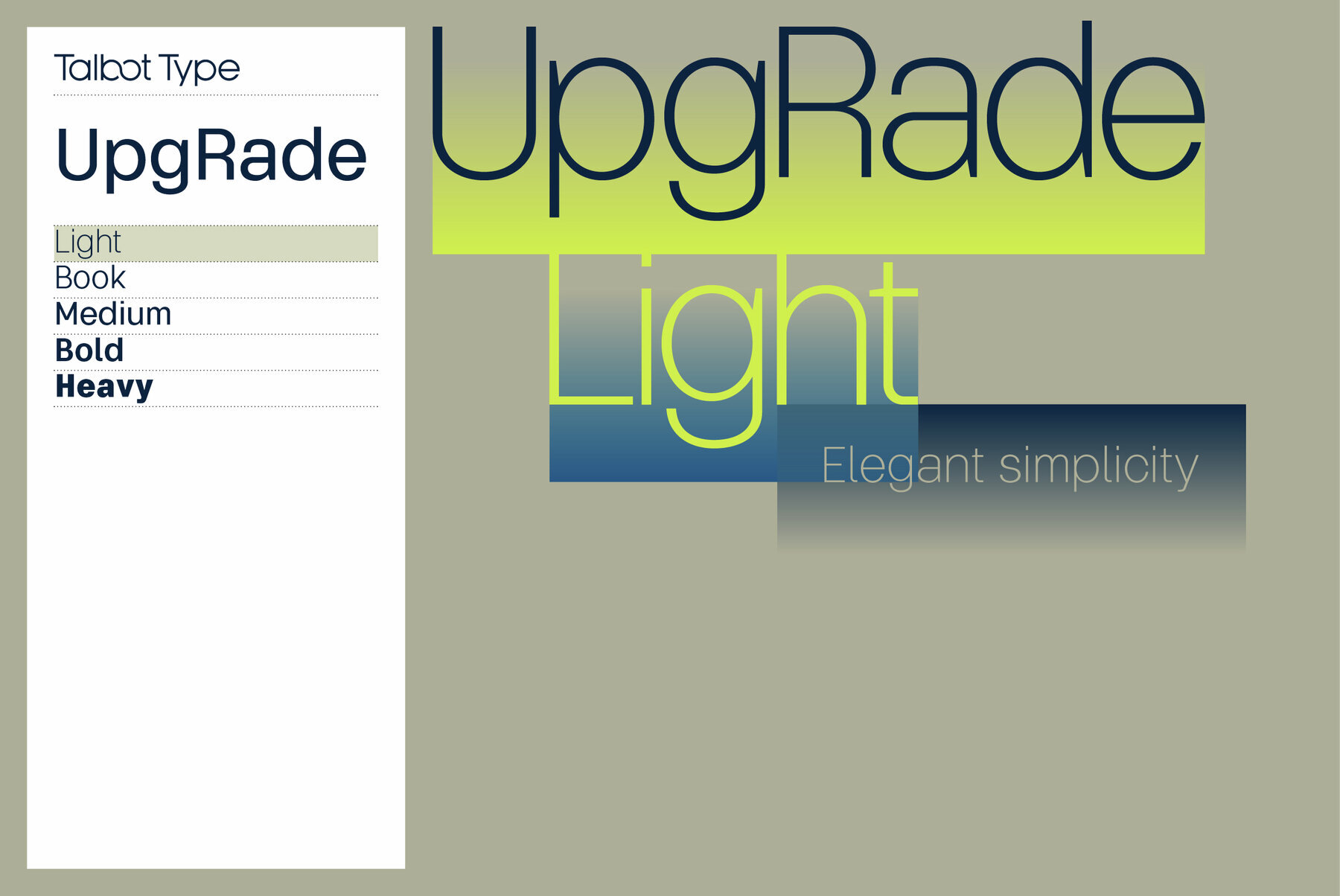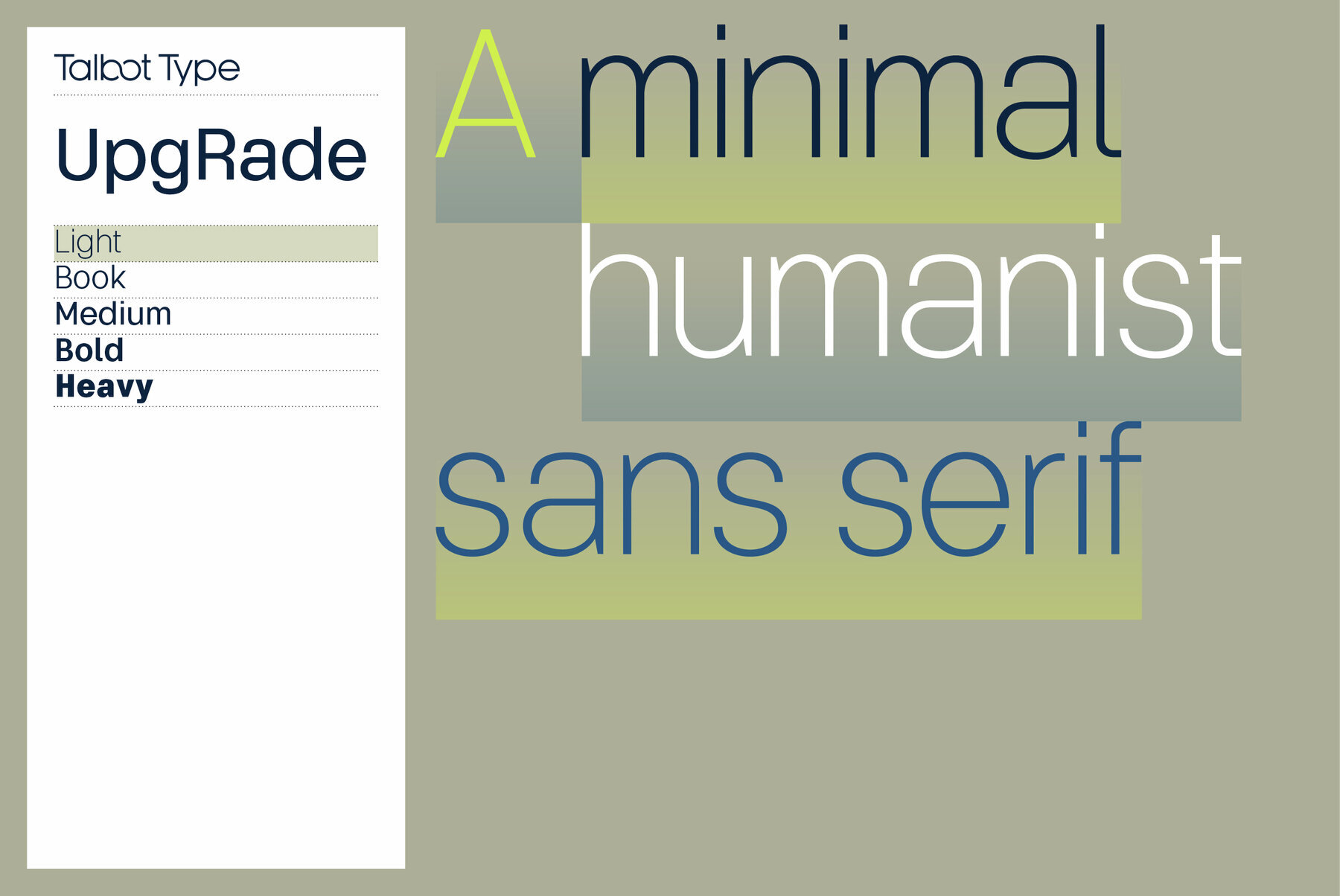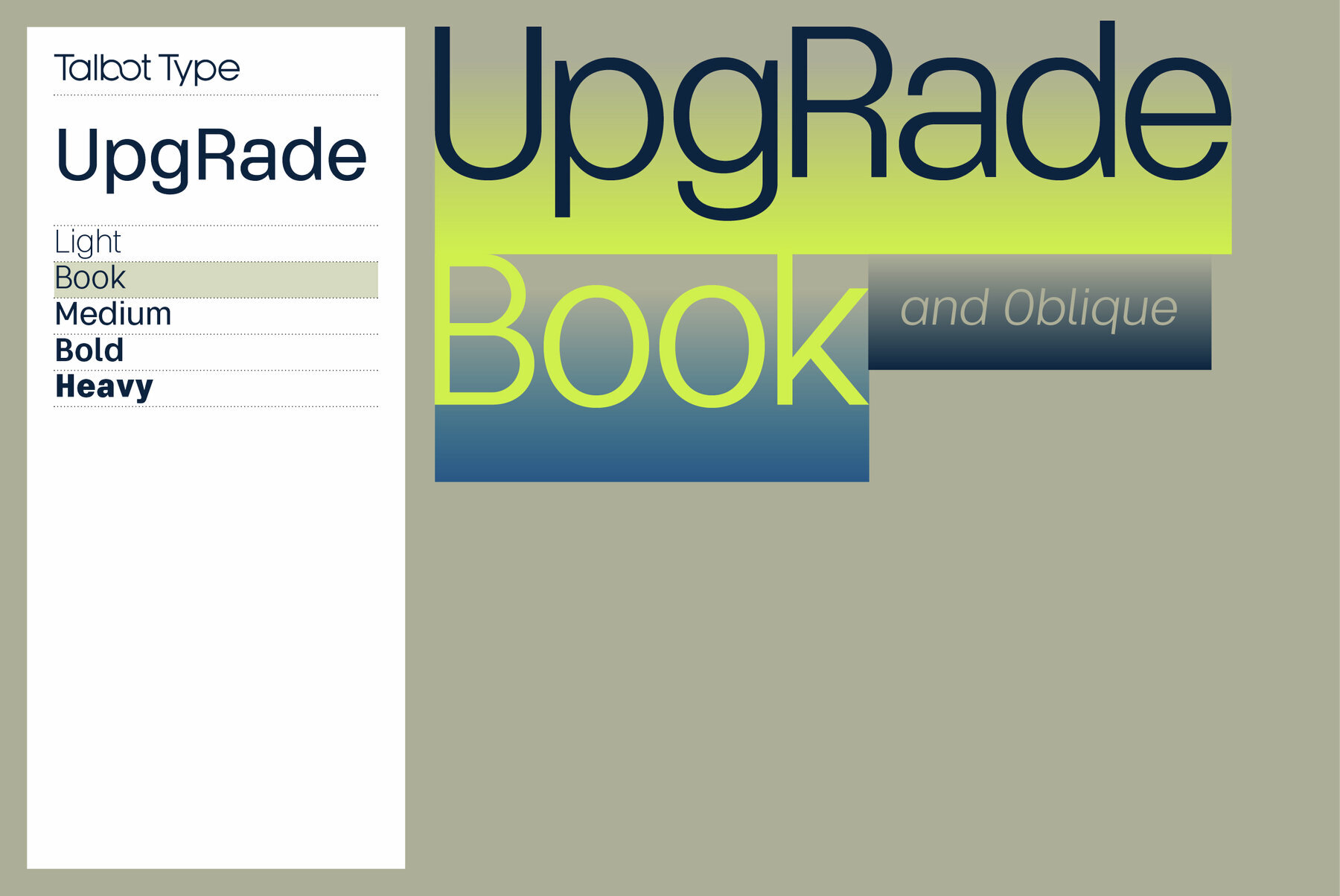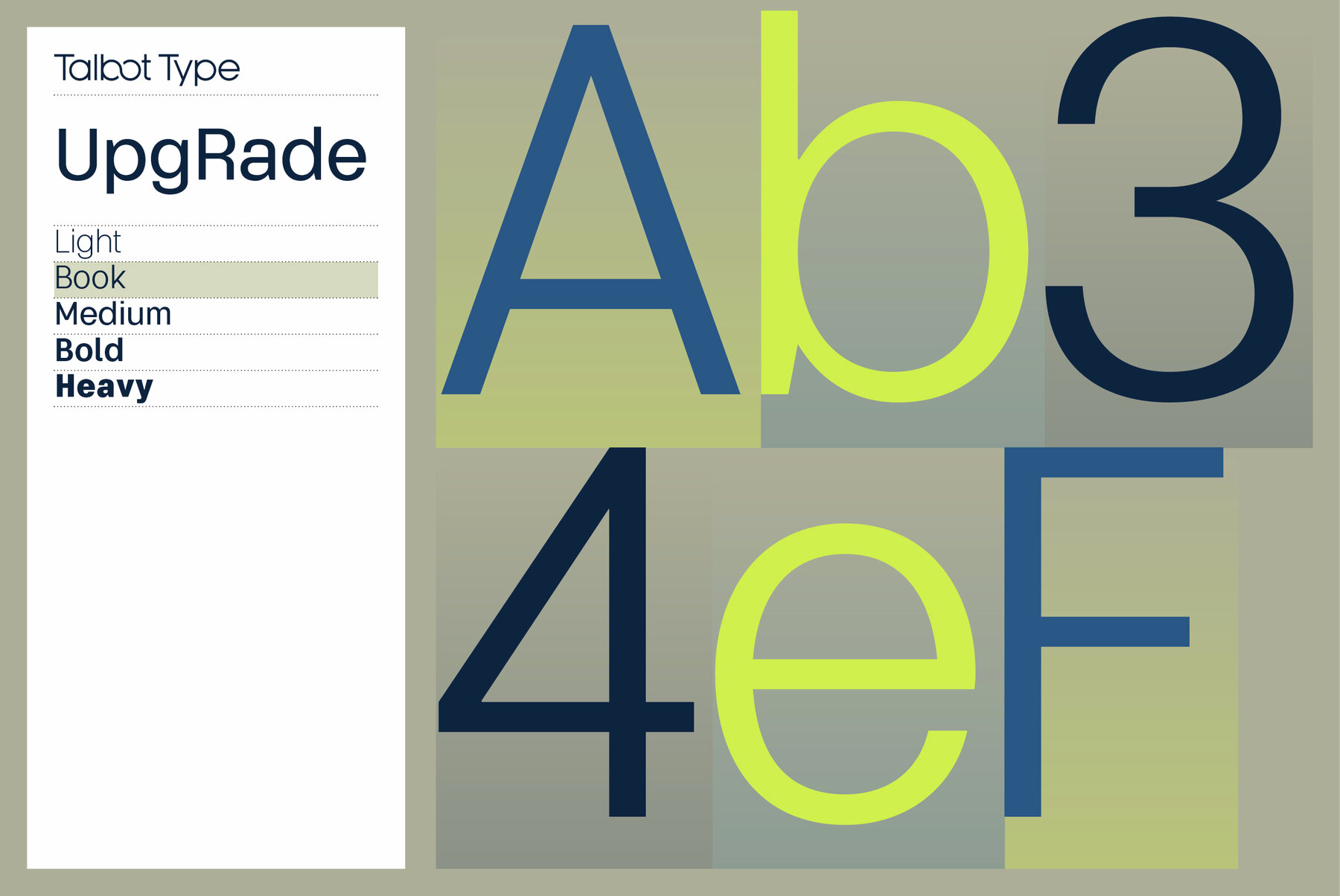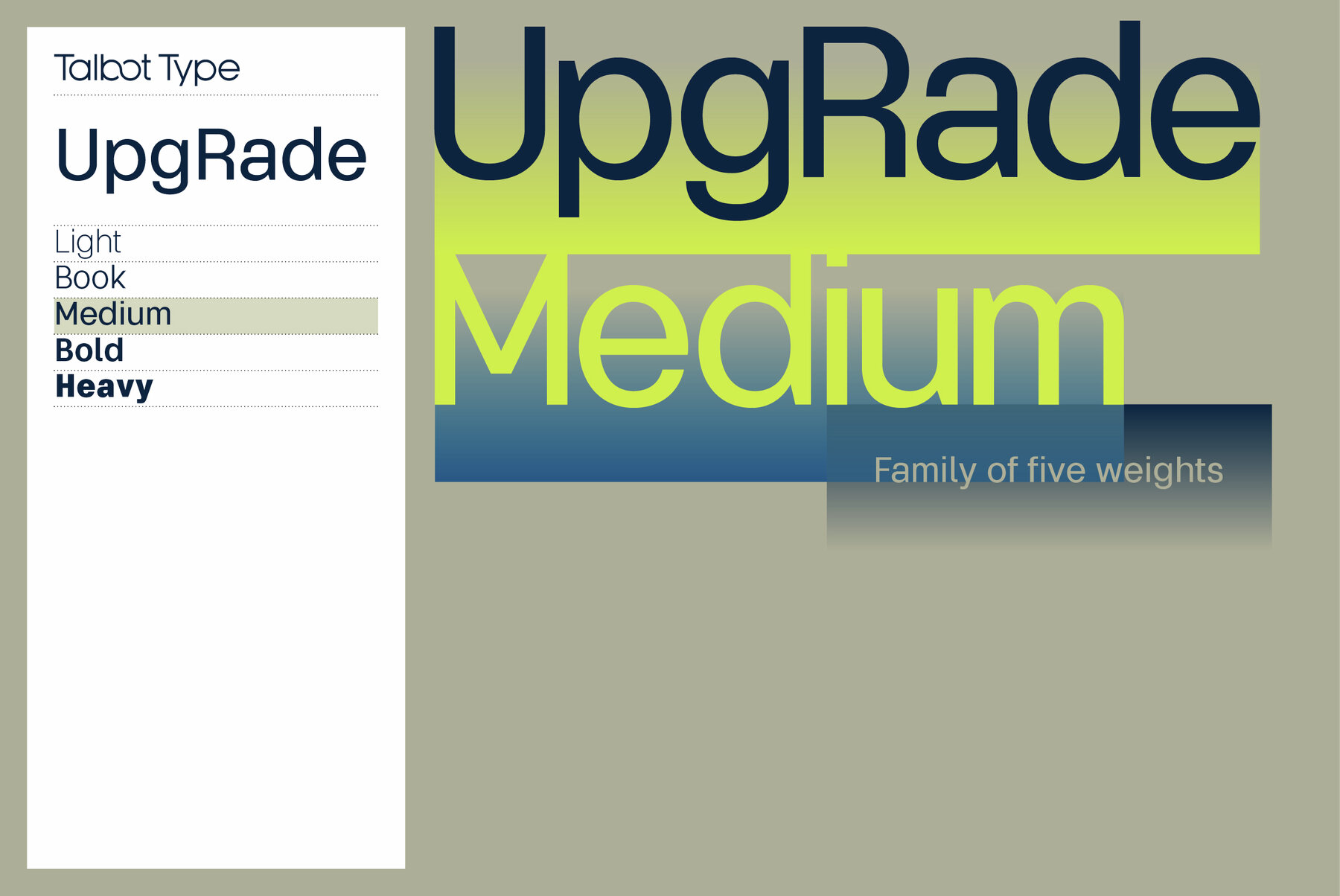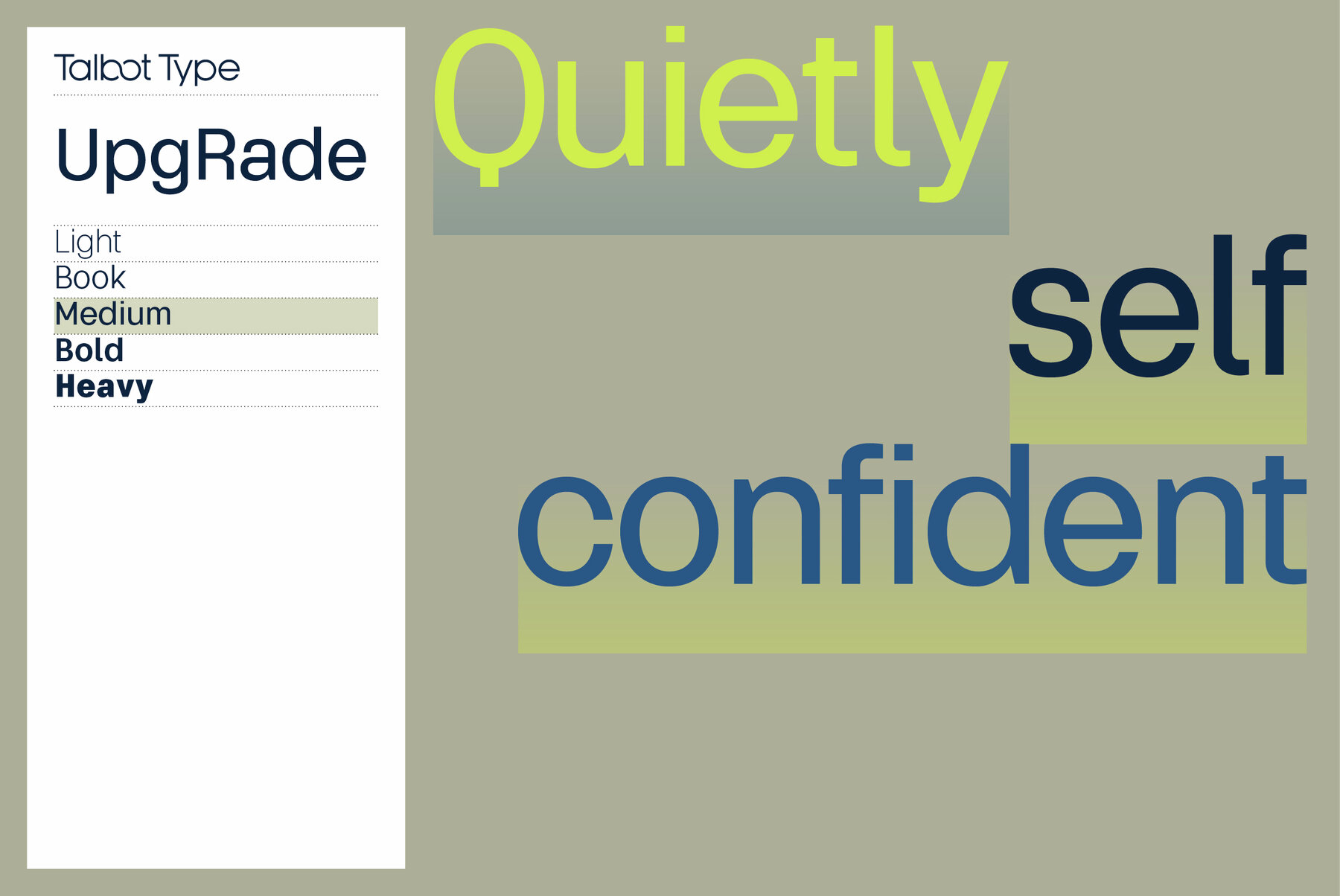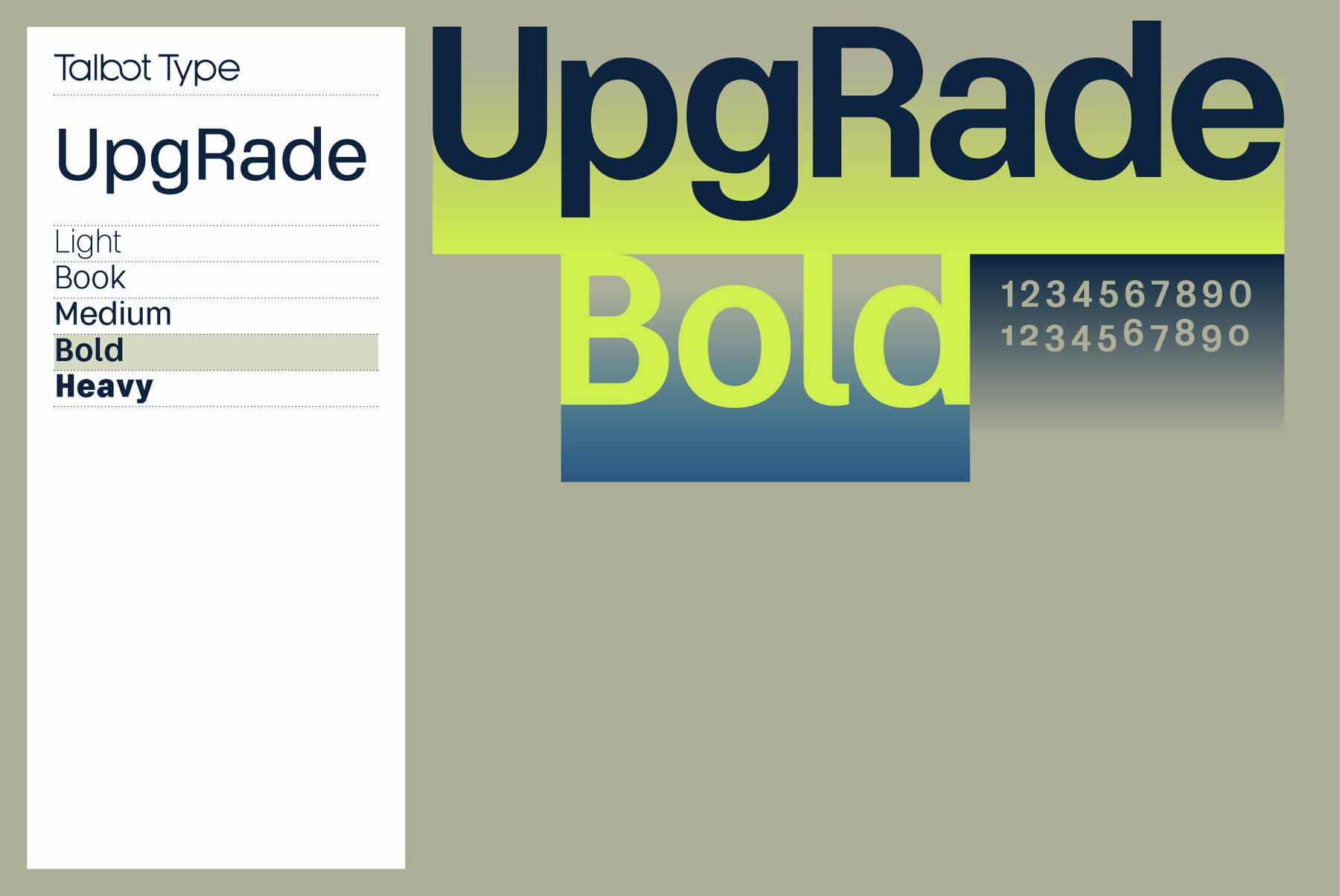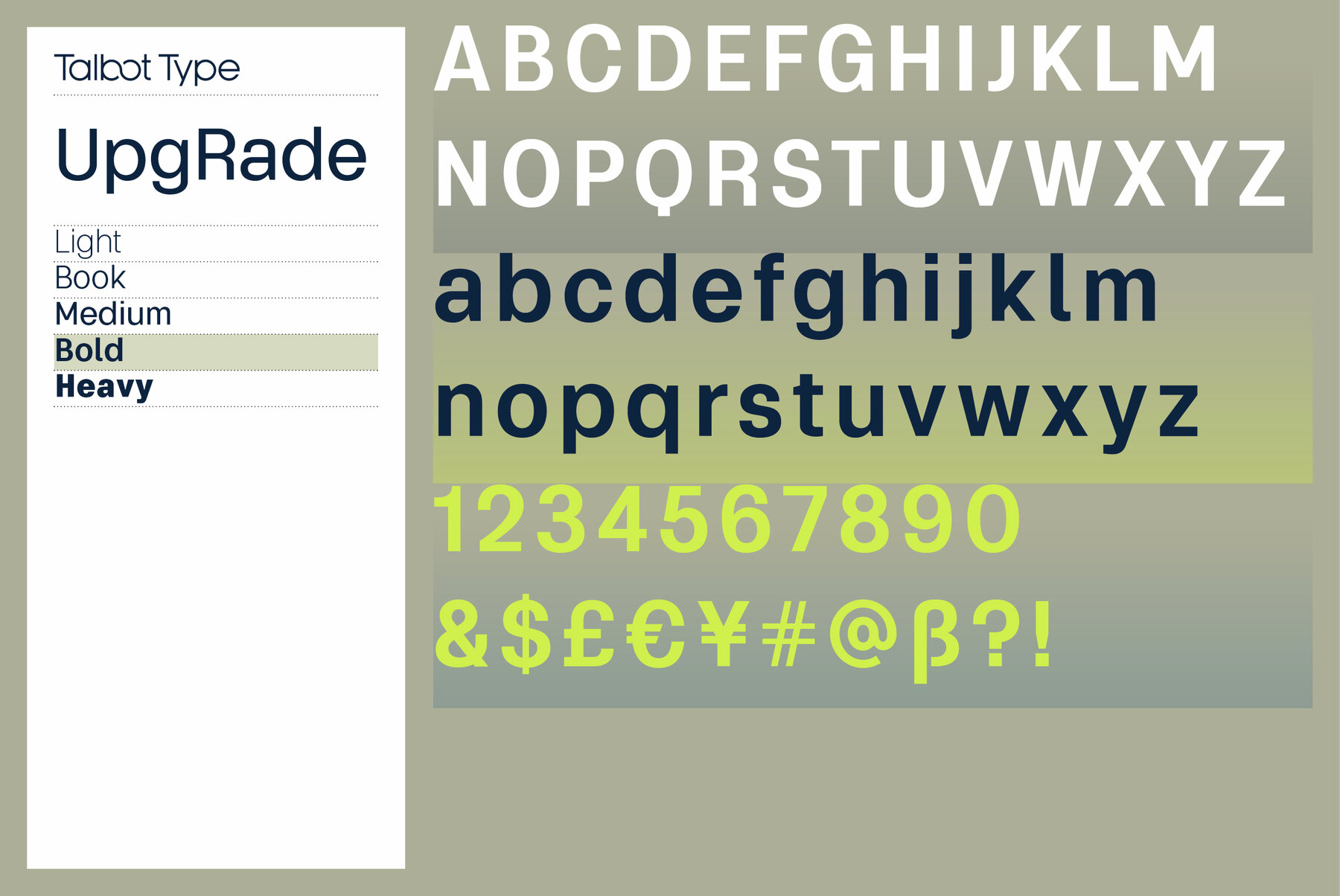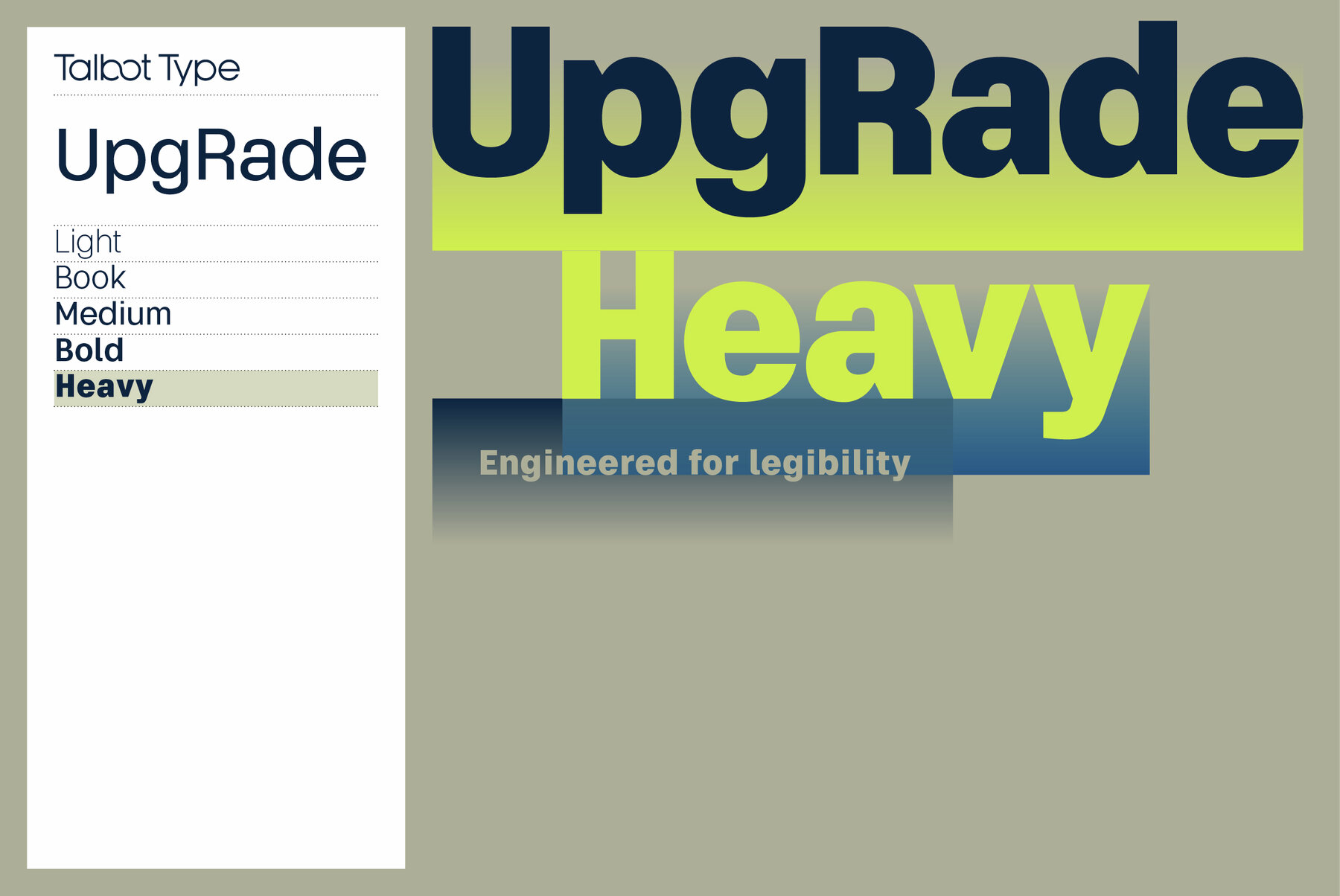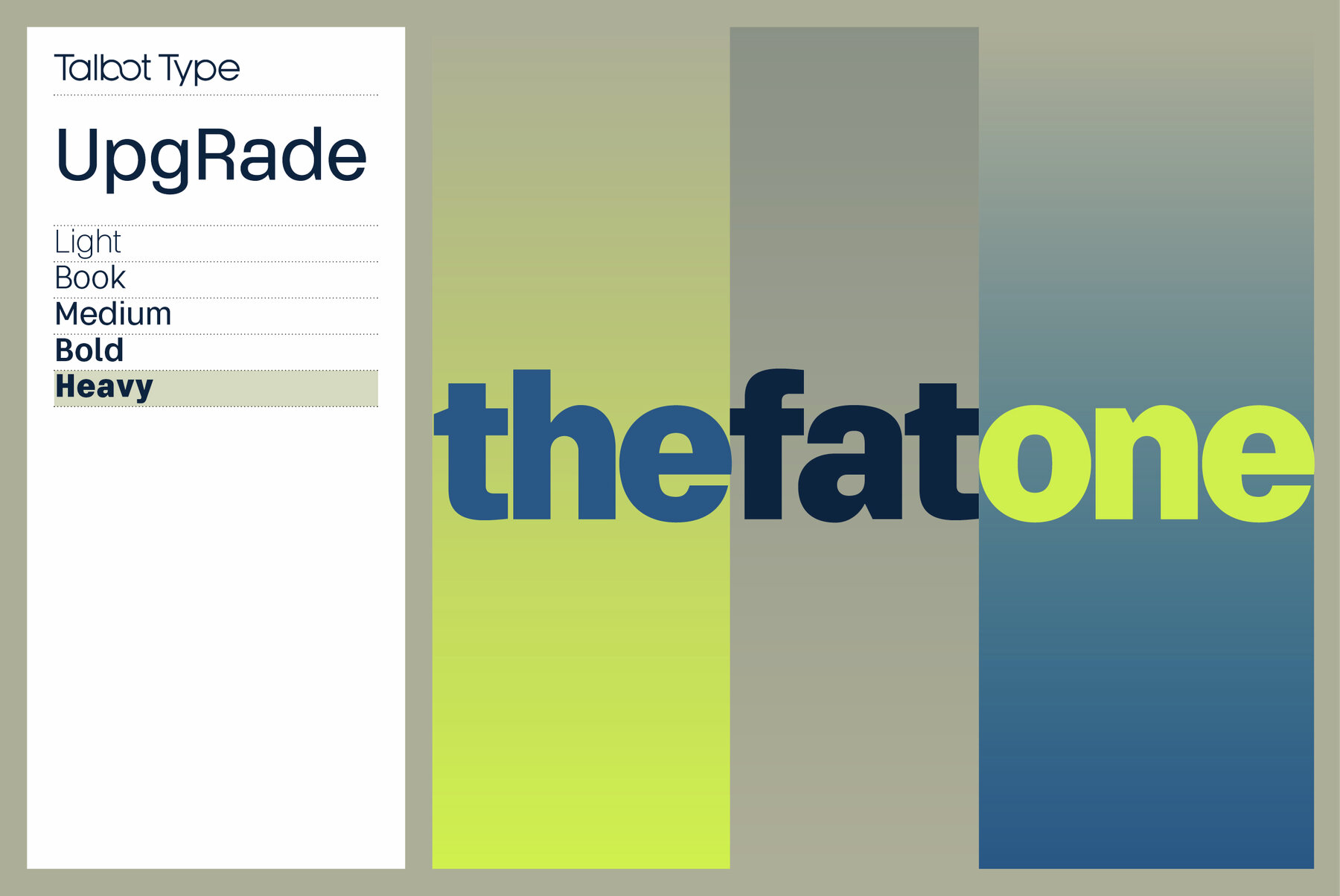
UpgRade Font
UpgRade is a highly legible, humanist text and display font. Inspired by classic humanist fonts such as Akzidenz and Helvetica, this elegantly minimal typeface is designed for maximum legibility at small sizes with details such as the two-storey a, modern g and a tail on the l. UpgRade provides a refreshing alternative to some of the more obvious sans serifs. It's available in a family of five weights. It includes old style non-aligning (lower case) numbers, as well as accented characters for Central European languages. A versatile, contemporary sans-serif, UpgRade is suitable for more-or-less any text or display purpose.